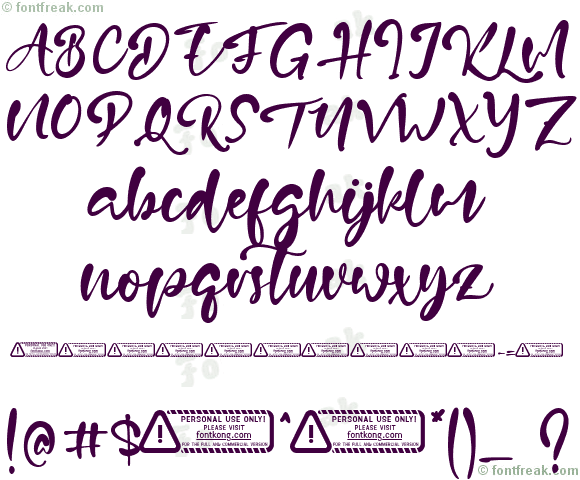
Dundleson
Dundleson is a stunning handwritten typeface created by Kong Font, released in 2021. This script font features elegant, flowing strokes with a distinctive charm that makes it stand out in various design applications. Characterized by its moderate stroke weight and subtle contrast, Dundleson exhibits a smooth, fluid style that is both inviting and modern. The generous spacing between characters enhances its readability, making it suitable for a wide range of projects.
This versatile font is perfect for creating wedding invitations, where its romantic flair adds a personal touch to the occasion. Additionally, it works beautifully on restaurant menus, helping to convey a warm and inviting atmosphere that appeals to diners. Dundleson also shines in branding materials for small businesses, capturing attention through its unique personality. Graphic designers will find it invaluable for crafting eye-catching social media graphics and promotional materials, while content creators can use it to add an artistic flair to their blogs and websites.
What sets Dundleson apart from other handwritten fonts is its balance of elegance and approachability. The flowing lines and harmonious curves create a sense of warmth, making it a perfect choice for projects that aim to connect with audiences on a personal level. For those in search of a distinctive and versatile typeface, the Dundleson font free download is a fantastic opportunity to enrich your design repertoire.